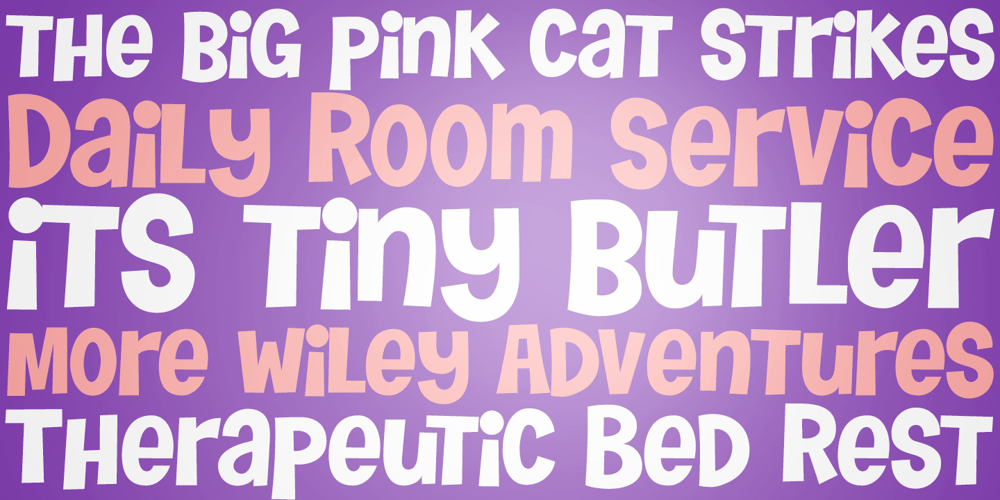
Tiny Butler
Tiny Butler Font Family was designed by Phil Bracco and published by Pink Broccoli. Tiny Butler contains 1 styles and family package options. A light hearted unicase typeface inspired by the titling of the 1977 Pink Panther cartoon, Therapeutic Pink.